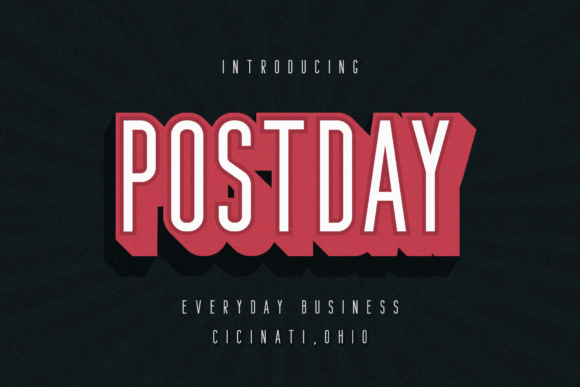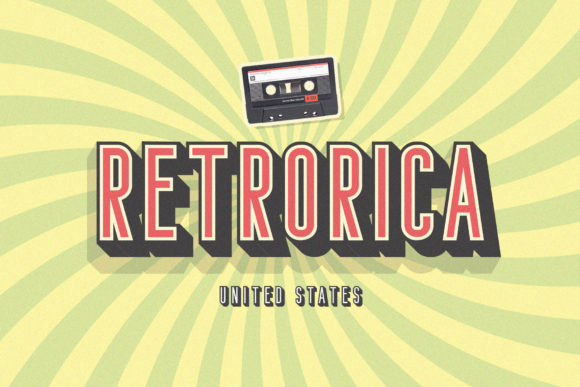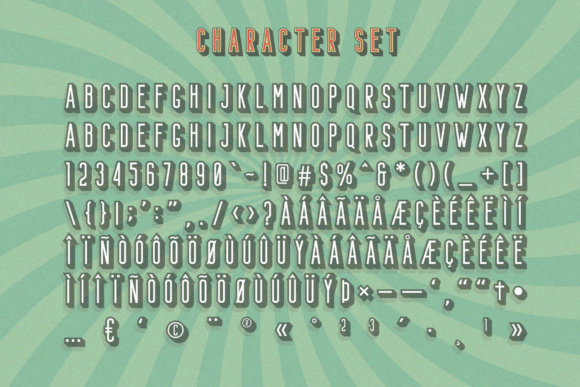
Bondie Font
Bondie is a extrude font family in a sans serif style. It comes with 4 unique layers and is the result of an exploration of retro American and European sans serif lettering used in vintage advertising.The Bondie family is a attractive contemporary font. Each layer can be stacked, to create a unique combination of designs.It’s suitable for a large variety of uses, such as logos, cards & quotes, posters, personal & corporate branding, apparel designs, and much more.